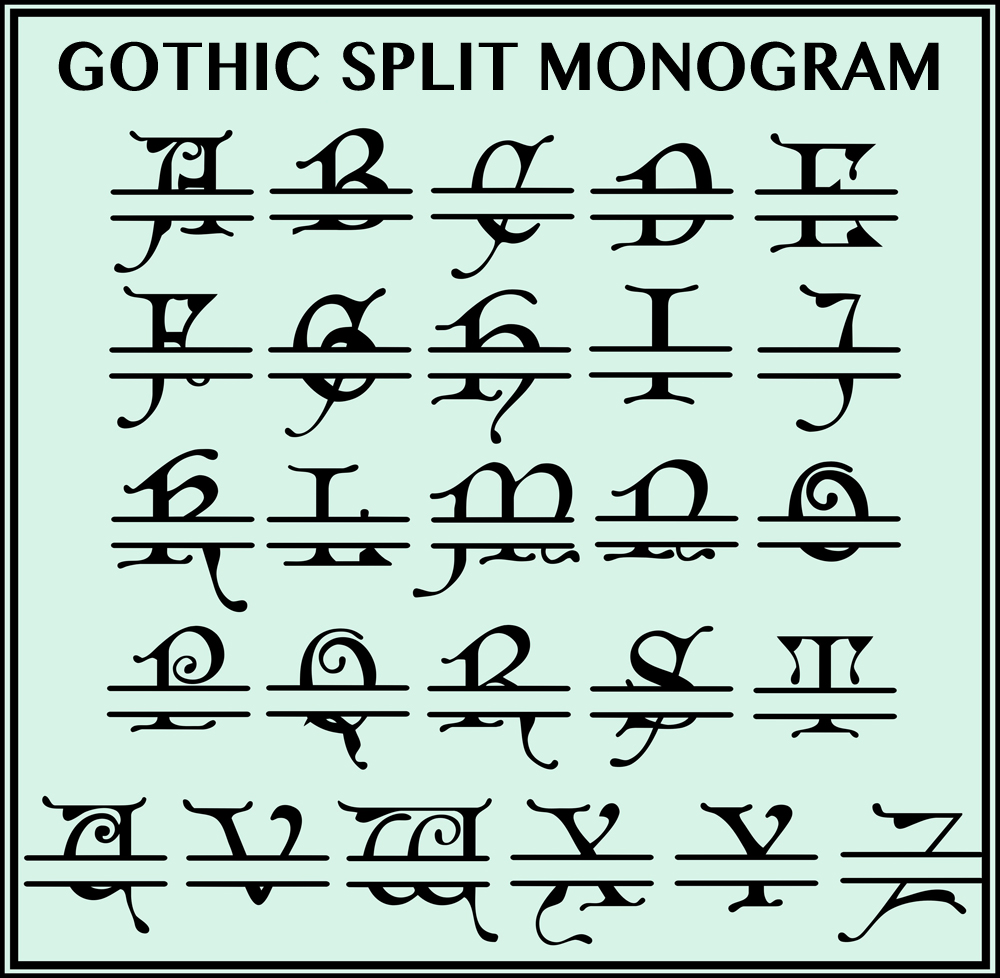
Gothic Split Monogram Font
With wedding season upon us I wanted to make an beautiful but simple split monogram font set. This monogram set has beautiful tails and flourishes suited well for any elegant event. While many monograms include extra fine details that prevent you from sizing it down, this set will size up and down exceptionally well making it perfect for large home decor items or small cards and tags.
Beautiful on Invitations, Pillows, Doors and More!
One of my favorite ways to use a monogram is to create a framed sign with the couple’s name and wedding date. It makes a beautiful customized gift for the wedding couple and is not too difficult or expensive. It would also be lovely on a pillow. If you are the one getting married rather than the one giving gifts it is lovely on invitations, programs, and menus too!